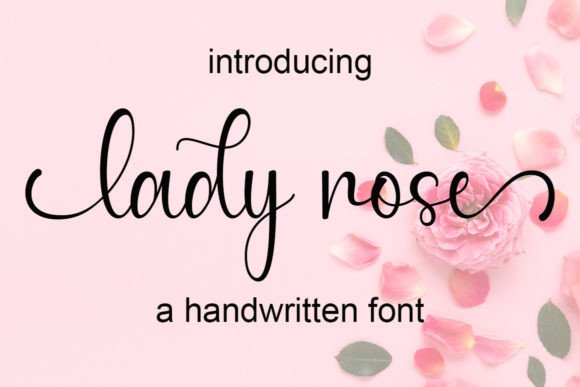
Behold, the Lady Rose Font - an exquisitely crafted handwritten script font that will ignite a spark of enchantment in your creative endeavors. Step into a realm of elegance and sophistication as you explore the infinite possibilities that await you with this enchanting font.
With Lady Rose, your designs will blossom into masterpieces, leaving an unforgettable impression on all who lay eyes upon them. Its meticulously crafted glyphs and ligatures lend an air of grace and charm to logos, branding, quotes, clothing, tote bags, business cards, websites, and a myriad of other creative projects.
Imagine your Christmas logo adorned with the magic of Lady Rose, exuding a warmth and charm that will capture the hearts of your customers. Let your imagination run wild as you create awe-inspiring visuals that perfectly encapsulate the spirit of the festive season.
Lady Rose is more than just a font - it's an invitation to embark on a creative journey where your ideas take flight. Its PUA encoding ensures effortless access to all the glyphs and ligatures, empowering you to unleash your full creative potential.
With Lady Rose as your creative companion, the possibilities are endless. Let your imagination soar and craft designs that resonate with your audience, leaving them spellbound by your creative genius. Experience the allure of the Lady Rose Font and elevate your designs to extraordinary heights.